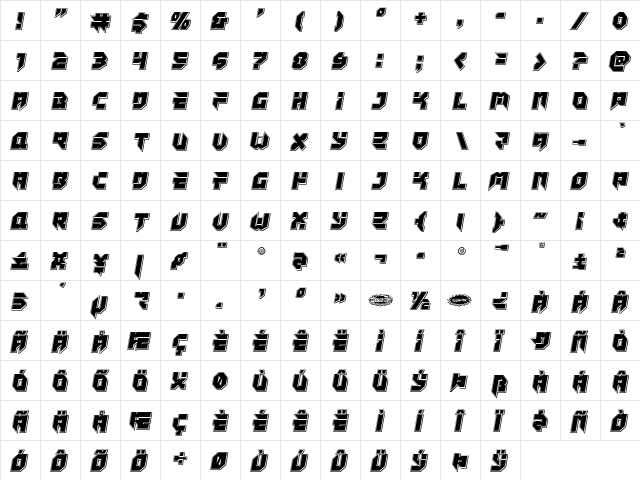
Tokyo Drifter Punch Regular
Design Context for Tokyo Drifter Punch Typeface
Tokyo Drifter Punch is a composed and adaptable typeface that performs quietly and consistently across a wide range of design contexts.
Pro Tip: Use Tokyo Drifter Punch in both headline and body roles to test its range before committing to a single application.